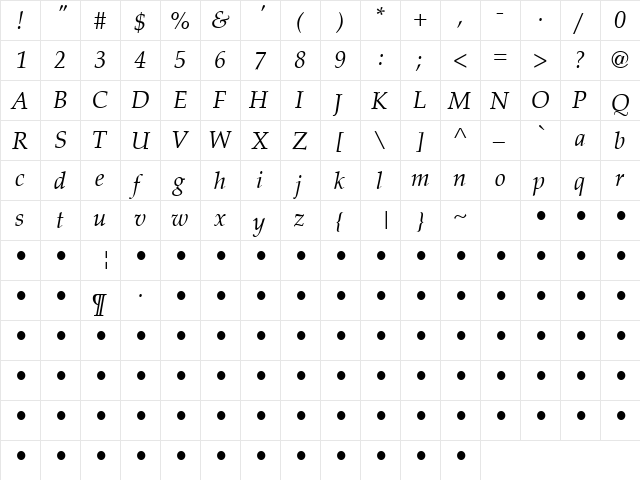
QTPalatine Italic
Design Context for QTPalatine Typeface
QTPalatine is a composed and adaptable typeface that performs quietly and consistently across a wide range of design contexts. Its italic angle brings a sense of urgency and motion to the letterforms.
Pro Tip: Try QTPalatine for annotation and caption copy alongside an upright companion — the contrast in angle creates a dynamic but ordered typographic system.